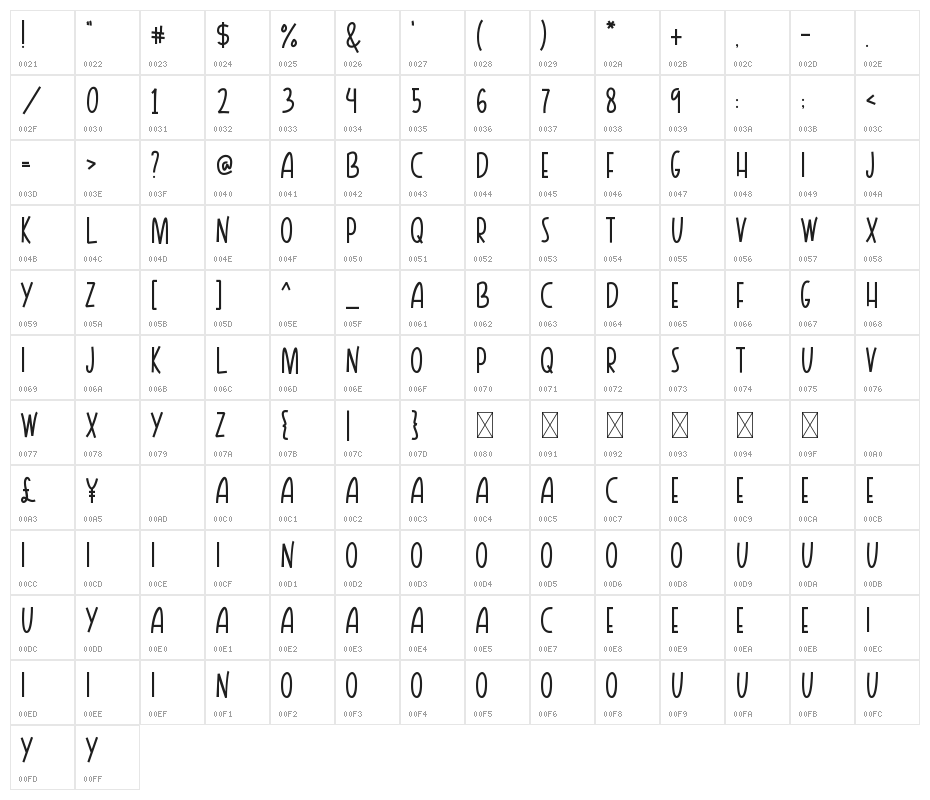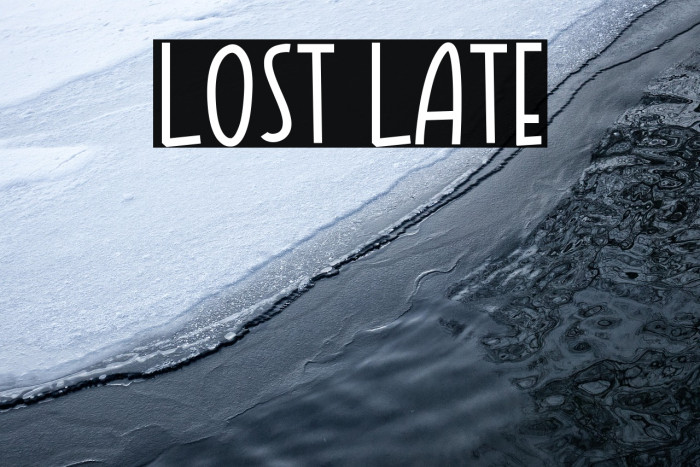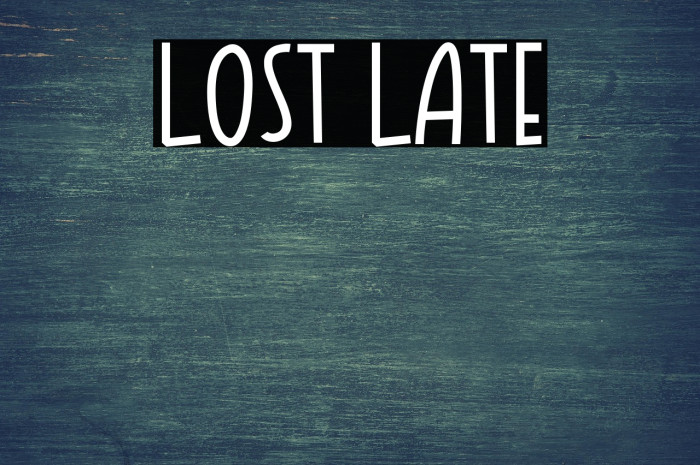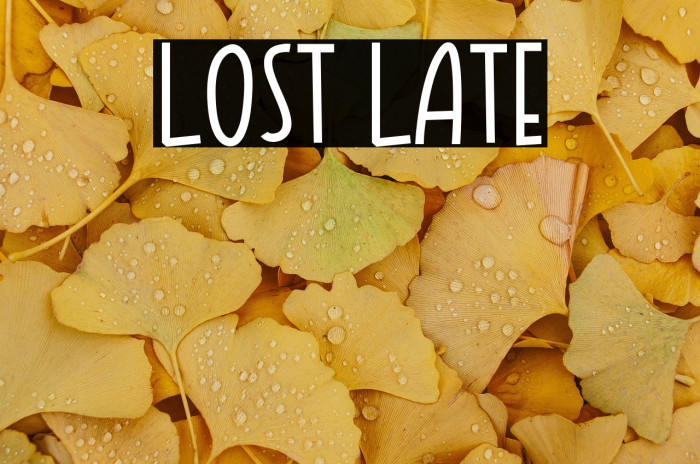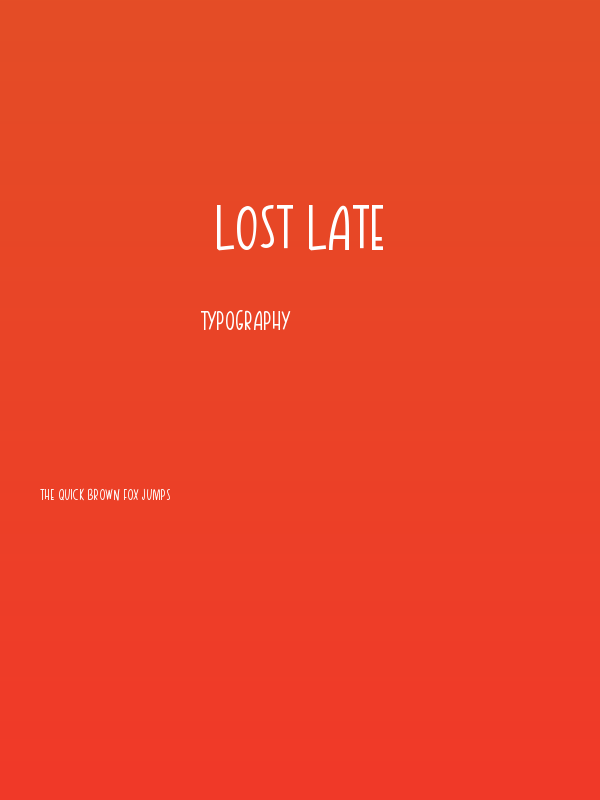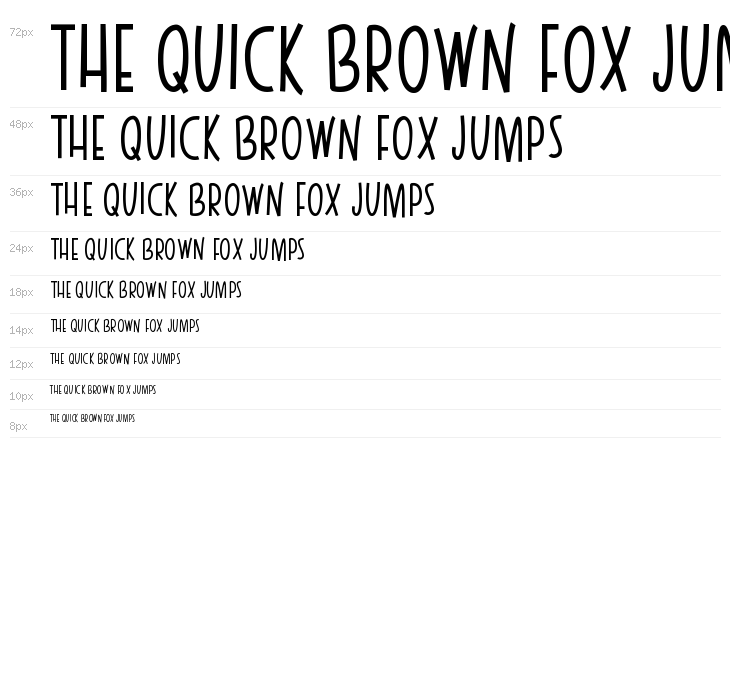
LOST LATE Font
LOST LATE Description
This font features a playful and informal style with tall, narrow letters that have a hand-drawn appearance. The characters are slightly irregular, adding to the casual and approachable feel. The uppercase and lowercase letters maintain a consistent height, contributing to a cohesive look. The numbers and special characters follow the same design principles, ensuring uniformity across all elements. The font's unique personality makes it suitable for projects that require a touch of whimsy and creativity.
| Proposed Projects | Ideal for children's books, greeting cards, playful branding, and casual invitations. |